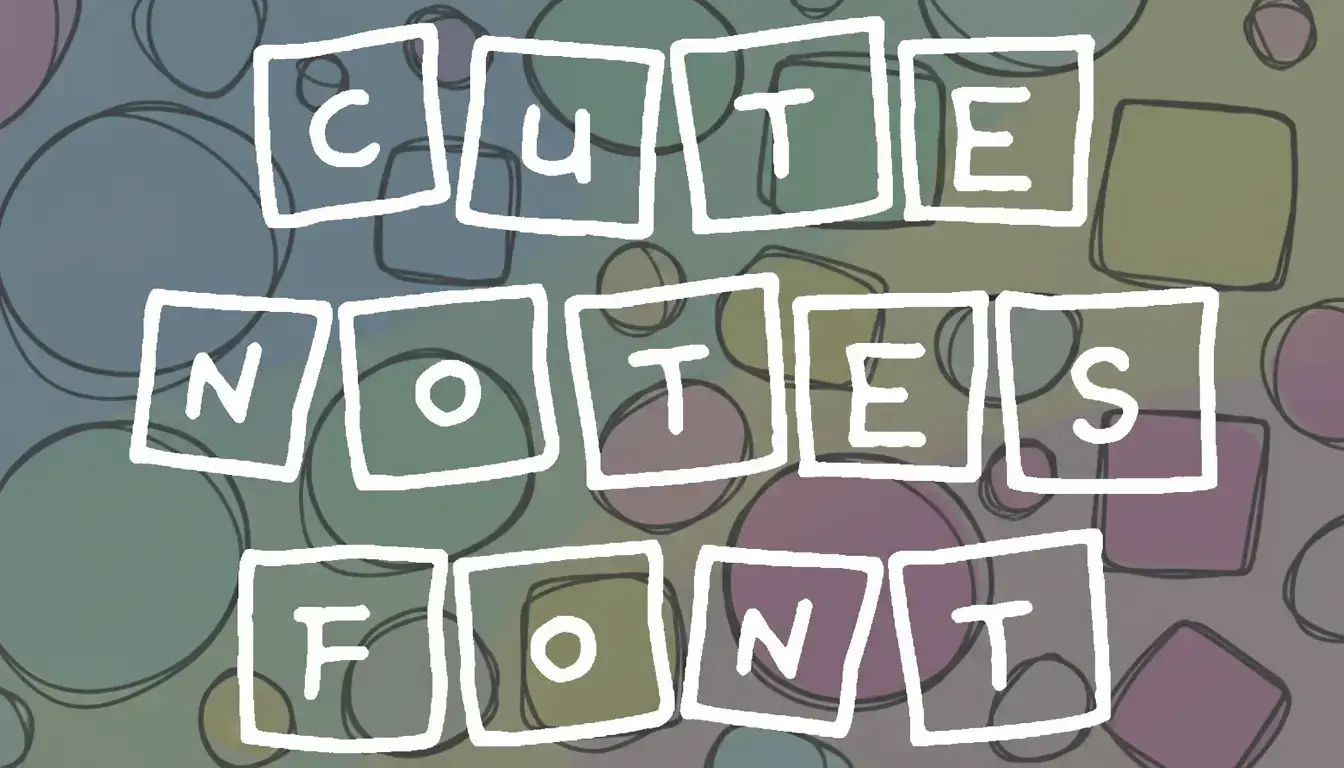
Cute Notes Font
Cute Notes
Cute Notes is a fancy font. It's a decorative display font with plenty of personality, made to grab attention. It's a free download, and you can try it with your own text in the preview above first.
What You Can Type With Cute Notes
With complete upper and lowercase letters and all ten digits, Cute Notes is ready for real wording, not just a single headline. Common punctuation such as &, !, ? and @ is included as well. It doesn't include accented letters such as é or ñ, which makes it an English-only font.
Where Cute Notes Works Best
Cute Notes is a natural fit for posters, logos and eye-catching headlines. Use it for one standout word or headline and let simpler fonts handle the rest.
Does Cute Notes support accented letters?
No. Cute Notes has no accented letters such as é, ñ or ü, so it's best for English text.